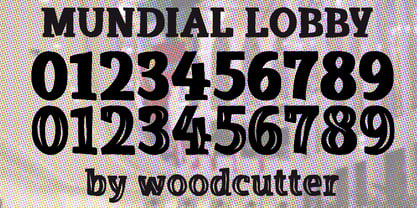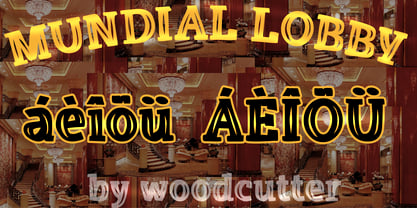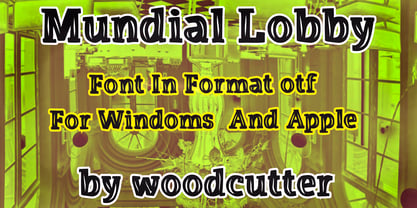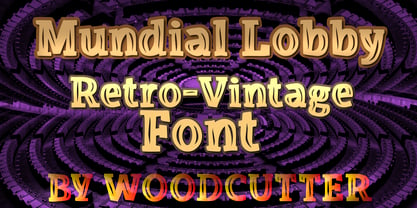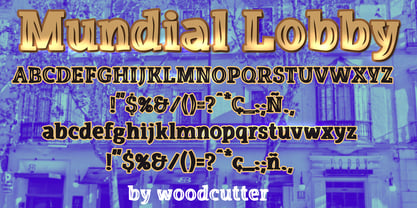
Mundial Lobby
by Woodcutter
The Mundial Lobby Font Family was designed by Jordi Manero and published by Woodcutter. Mundial Lobby contains 2 styles and family package options. More about this family
Mundial Lobby is a typeface family that embodies elegance, tradition, and timeless character. Designed in both uppercase and lowercase with full accent support, this font blends classical sophistication with a refined vintage aesthetic, evoking the atmosphere of historic institutions, luxury hotels, and prestigious editorial design.
The main version, Mundial Lobby, features carefully decorated characters enriched with subtle ornamental details. Its letterforms are precisely balanced, incorporating delicate serifs and refined embellishments that add personality without compromising readability. The result is a distinguished typeface, ideal for headlines, logos, and compositions that aim to convey authority, heritage, and good taste.
In contrast, Mundial Lobby Black offers a more direct and powerful interpretation of the family. In this version, the letters appear fully solid and black, removing decorative elements to enhance visual impact. It is perfect for applications where strong graphic presence is required while maintaining the elegant essence of the original design.
The versatility of Mundial Lobby makes it suitable for branding, packaging, posters, editorial layouts, or corporate identity. More than just a font, it creates an atmosphere—a carefully curated space that feels classic, exclusive, and rich in detail, where every element communicates refinement.